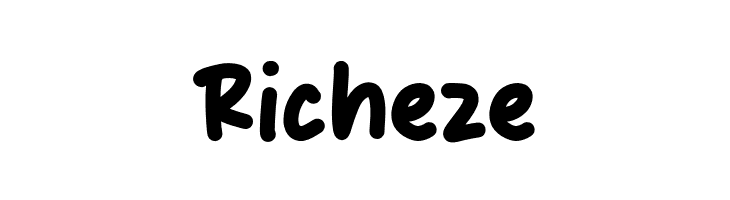
A casual, handwritten font with a playful and informal style.
A bold, geometric sans-serif font with a modern and versatile design.
A bold, oblique font with a modern and dynamic style.
A bold, oblique font with geometric shapes and clean lines.
A bold, modern font with geometric shapes and clean lines.
A playful, bold font with rounded, hand-drawn characters.
A bold, angular font with a geometric and edgy design.
A graceful script font with fluid, cursive strokes and elegant loops.
A modern, geometric font with clean lines and uniform stroke width.
A bold, flowing script font with expressive strokes and elegant connections.
A bold, flowing script font with dynamic, elegant strokes.
An elegant, flowing script font with ornate, cursive strokes.
A modern, light, and italic slab serif font with elegant and fluid characteristics.
A graceful script font with fluid, cursive strokes and elegant design.
A bold, geometric font with rounded edges and a block-like appearance.
A bold, geometric font with rounded edges and a distinct outline.
A digital watch-inspired font with characters formed by dots within watch-shaped frames.
A pixelated, digital watch-inspired font with characters enclosed in watch outlines.
A digital, watch-themed font with segmented characters in outlined displays.
A digital watch-inspired font with segmented characters in watch frames.
A digital watch-inspired font with characters in watch-like frames, featuring a bold, futuristic style.
A bold, geometric font with block-like characters and minimal stroke contrast.
A playful, handwritten-style font with smooth curves and a casual vibe.
A playful, handwritten-style font with a casual and lively appearance.
A playful, whimsical handwritten font with flowing cursive letterforms.
A bold, handwritten-style font with a modern, architectural aesthetic.
A clean, geometric font with a technical and modern style.
A tall, narrow font with clean lines and a modern, minimalist style.
A playful, whimsical font with rounded edges and dot accents.